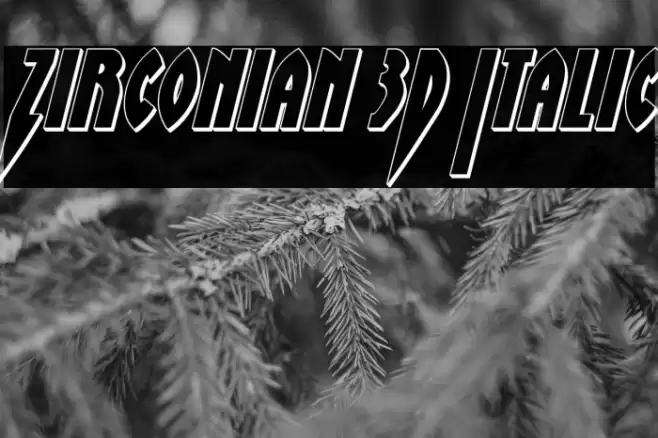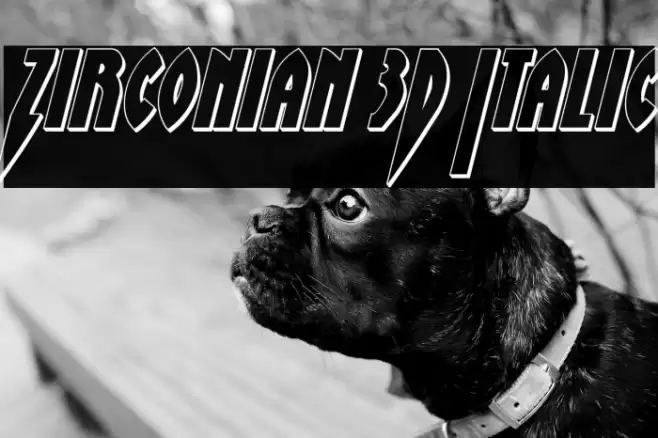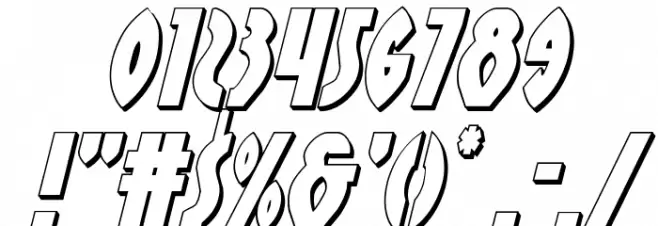
Zirconian 3D Italic Font
Zirconian 3D Italic Description
This font features a bold, three-dimensional design with a strong italic slant, giving it a dynamic and futuristic appearance. The characters are outlined, creating a shadow effect that enhances the 3D illusion. The uppercase letters are prominent and angular, while the lowercase letters maintain a consistent style, ensuring readability. The numbers and special characters follow the same bold and italicized design, making them stand out. This font is ideal for projects that require a modern and eye-catching look.
A bold, 3D italic font with a futuristic and dynamic style from Uncategorized fonts.
- Proposed Projects: Ideal for video game titles, sci-fi movie posters, and modern branding projects.
- Overall Style: Futuristic